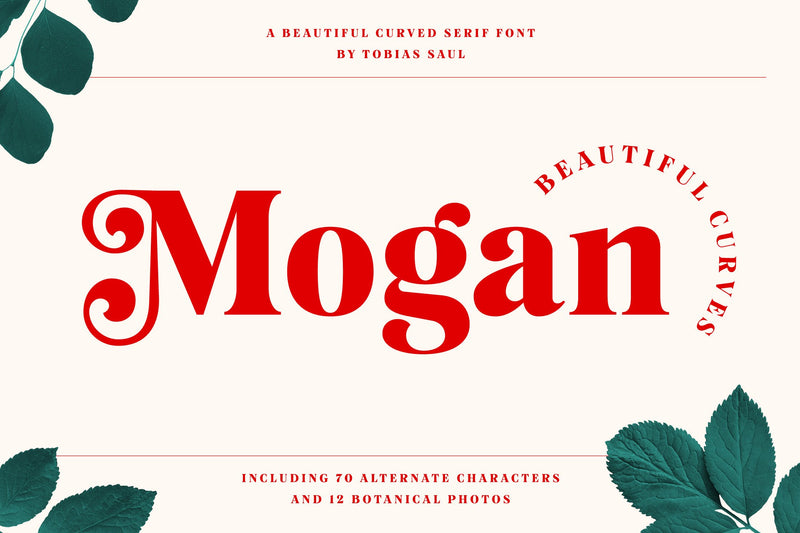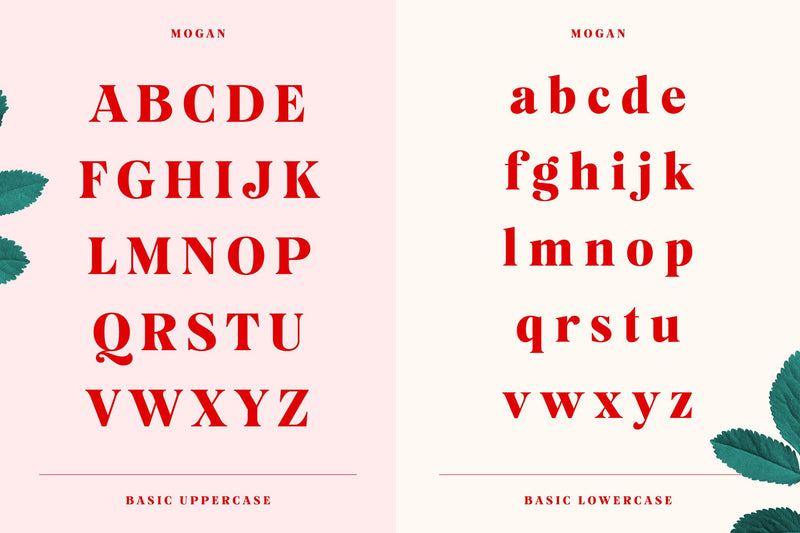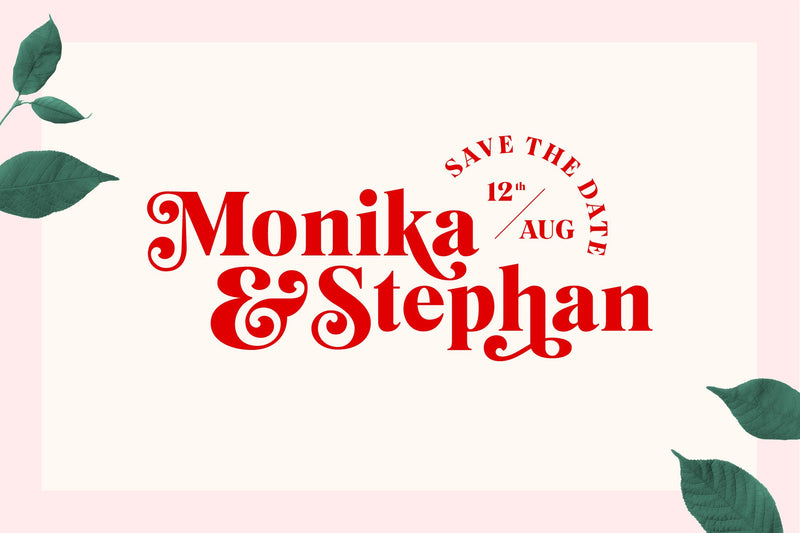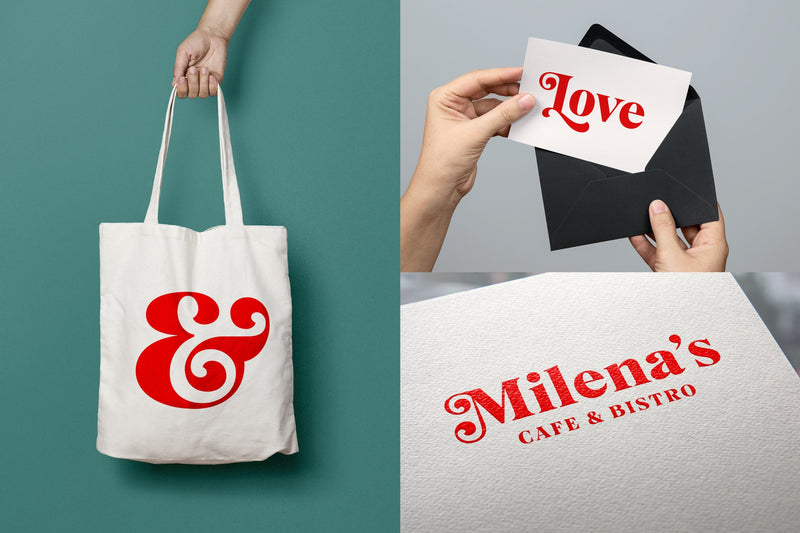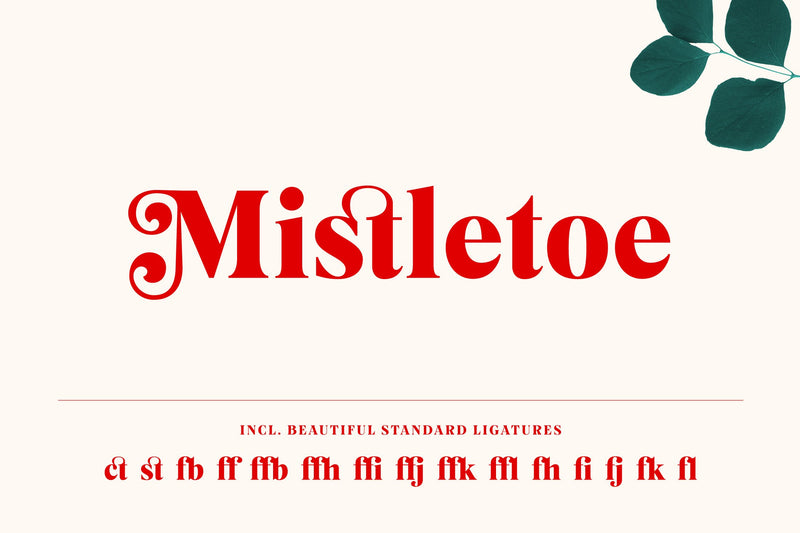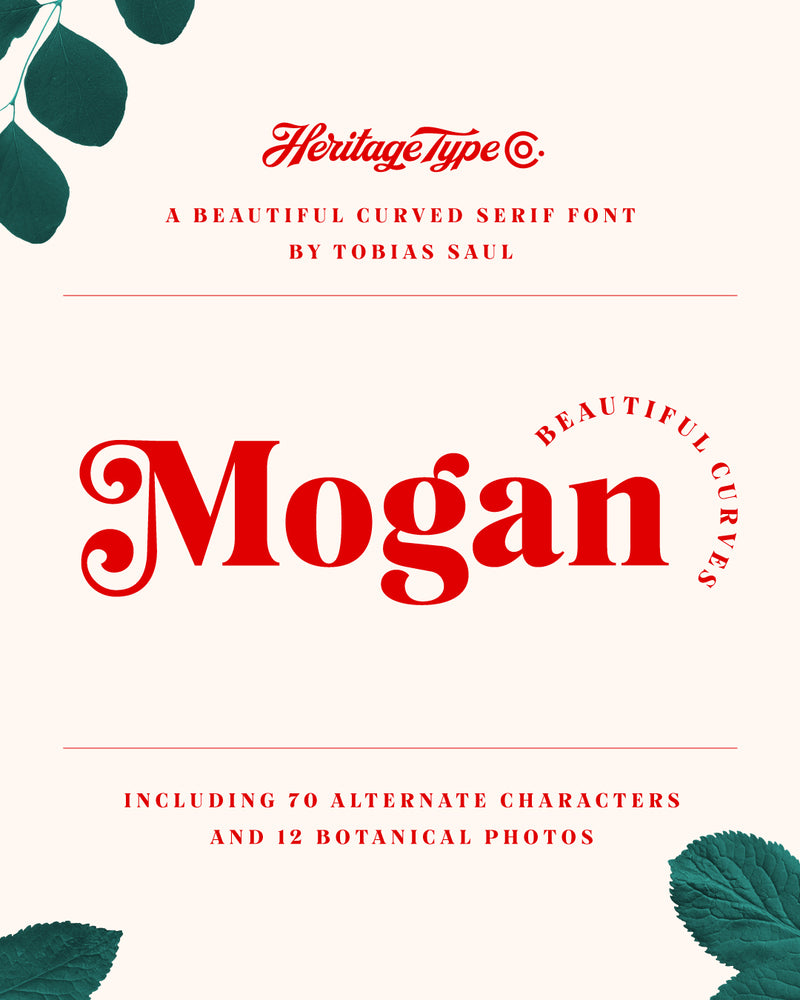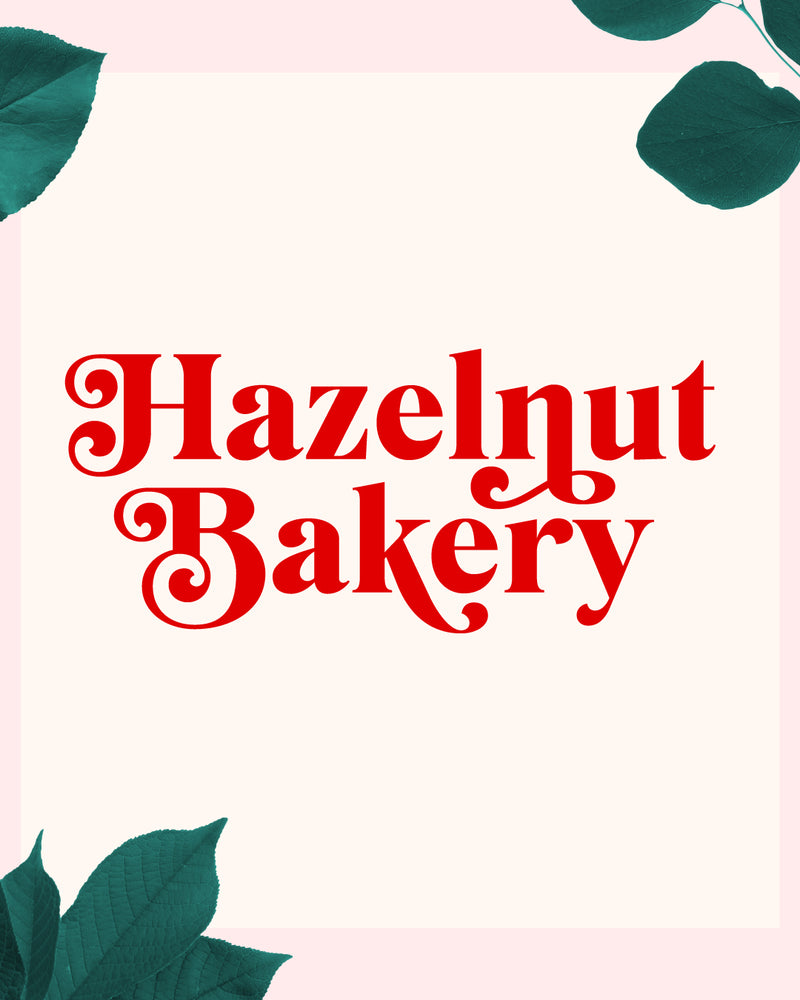
Mogan Serif Font + Extras
Mogan is an upper and lowercase serif font with nicely balanced curves. Like all of our fonts it is inspired by lettering from the good old past, but it still has a strong modern appearance. Its wide range of stylistic alternates allows versatile design options and works perfectly for headlines, logos, posters, packaging, T-shirts, postcards and much more. Furthermore we included a bonus of 12 leaf images, which we used for this presentation!
Font Features
- Character set A-Z
- 70 Stylistic Alternates
- Numerals & Punctuation
- Accented Characters (West Europe)